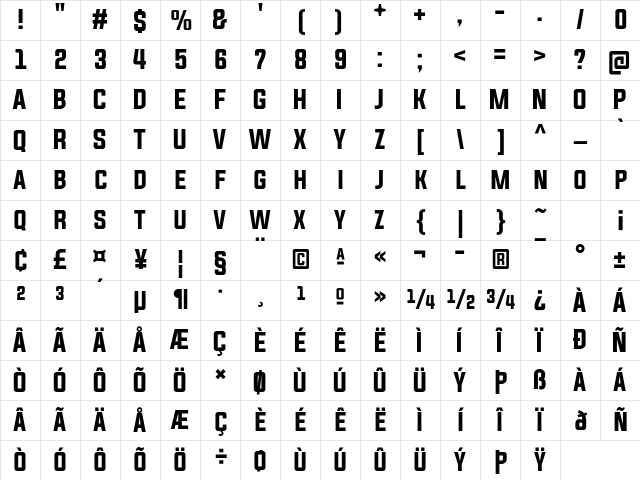
Evogria Regular
Designer: Situjuh Nazara
Design Context for Evogria
Evogria is a composed and adaptable typeface that performs quietly and consistently across a wide range of design contexts.